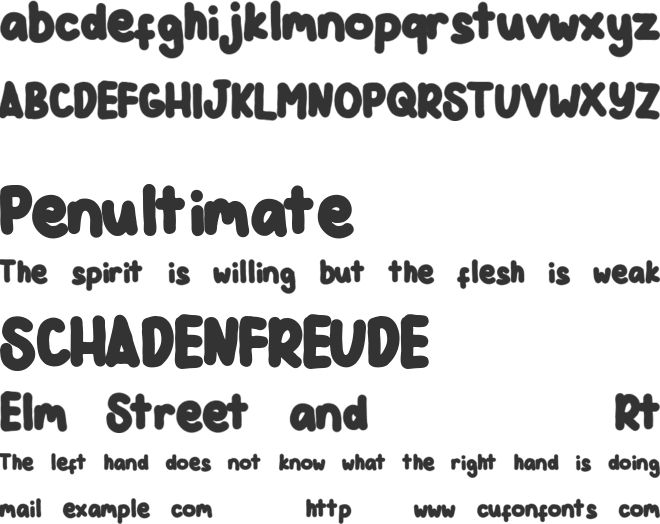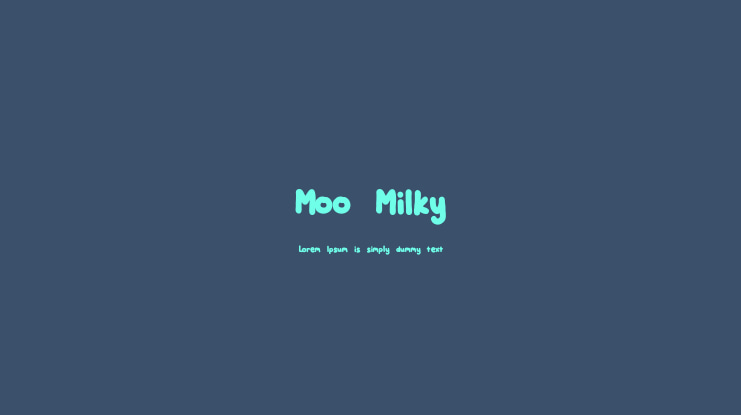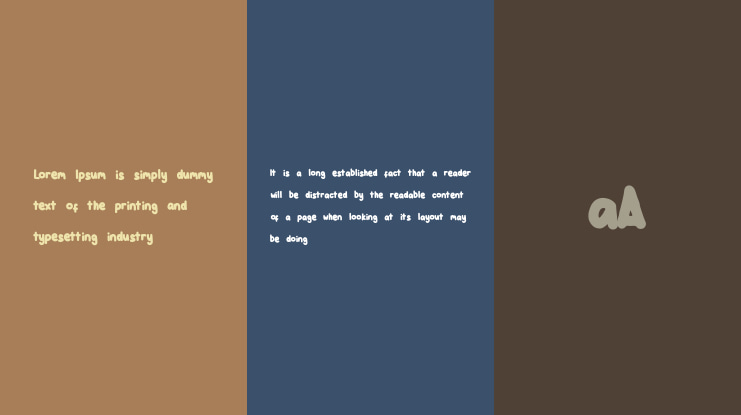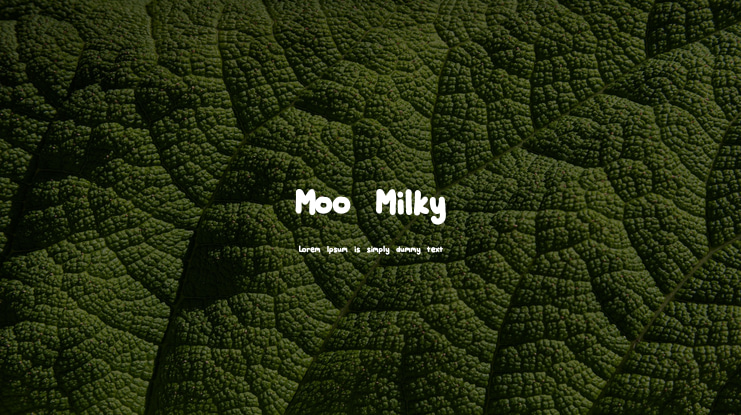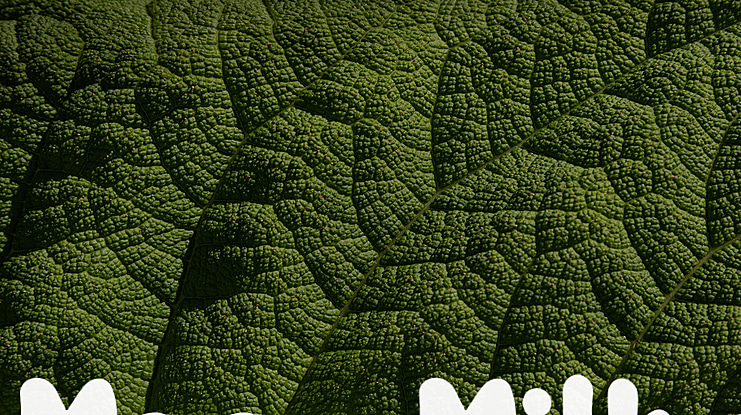
Moo Milky Font
Moo Milky is a simple, fun display font. Whether you’re using it for crafting, digital designing, presentations or greeting cards making, it’s perfect!